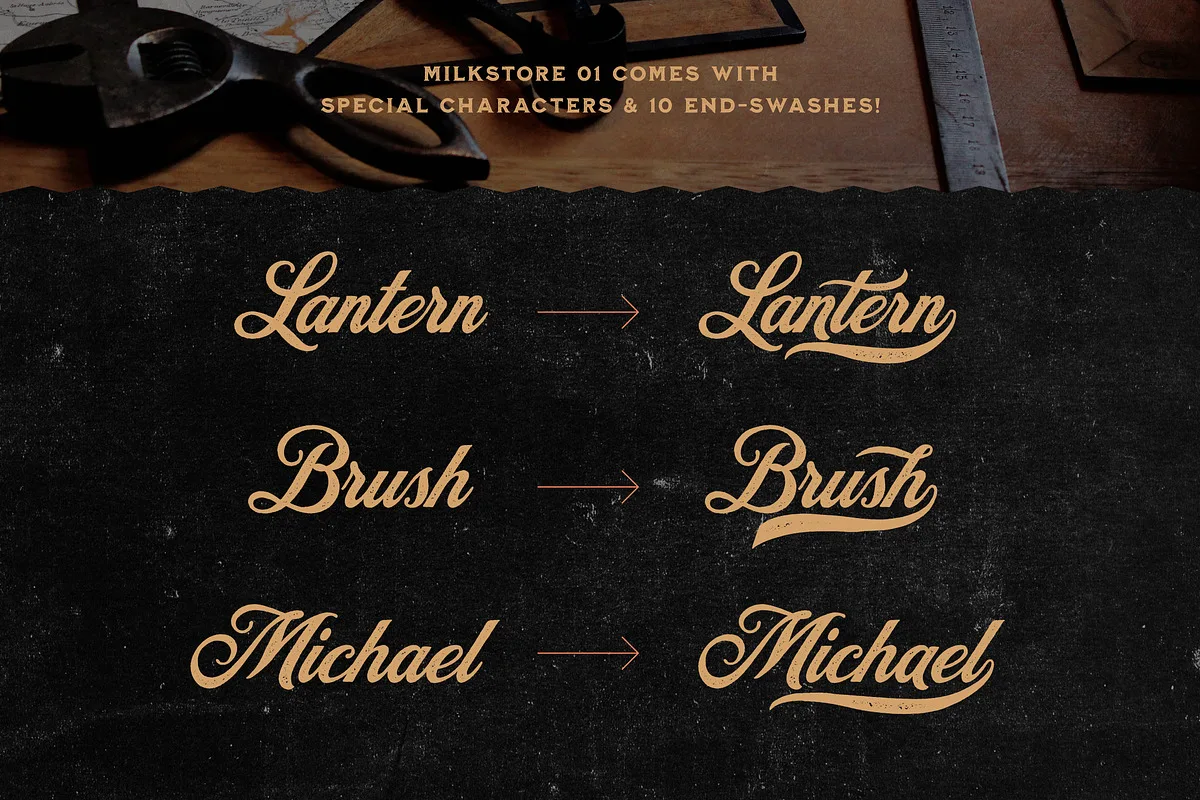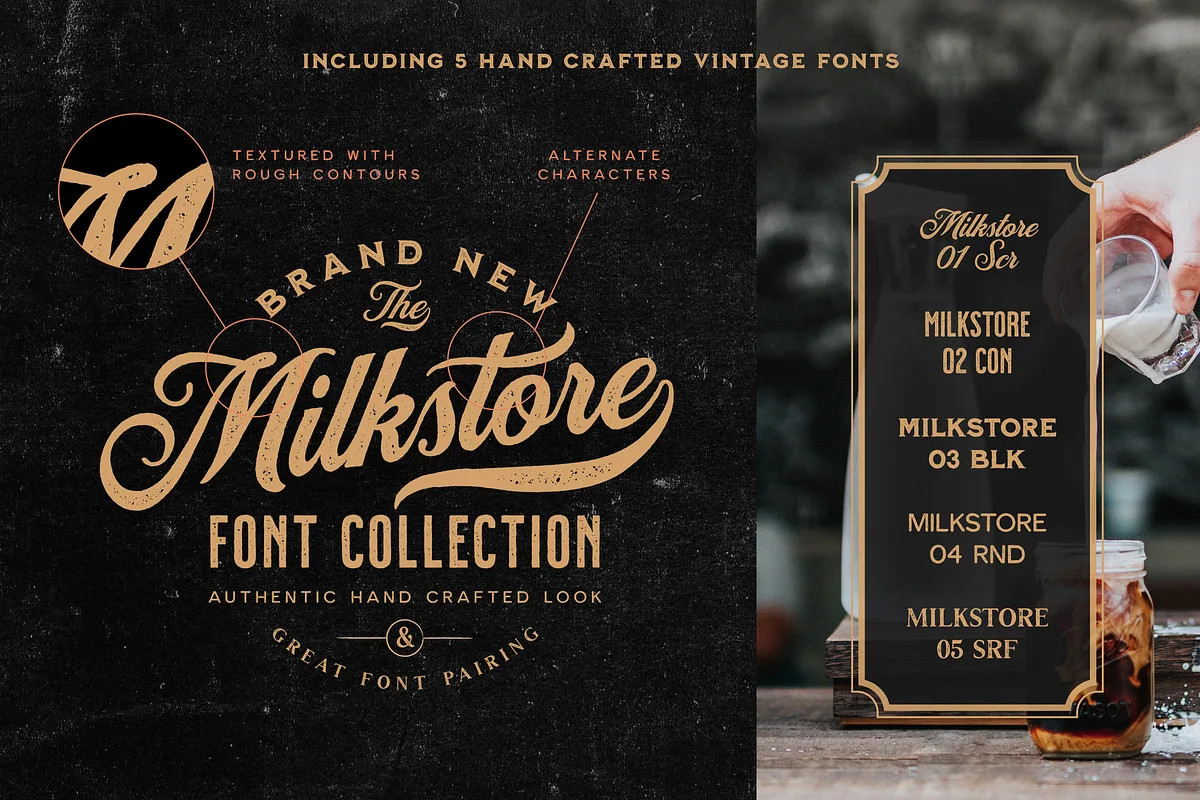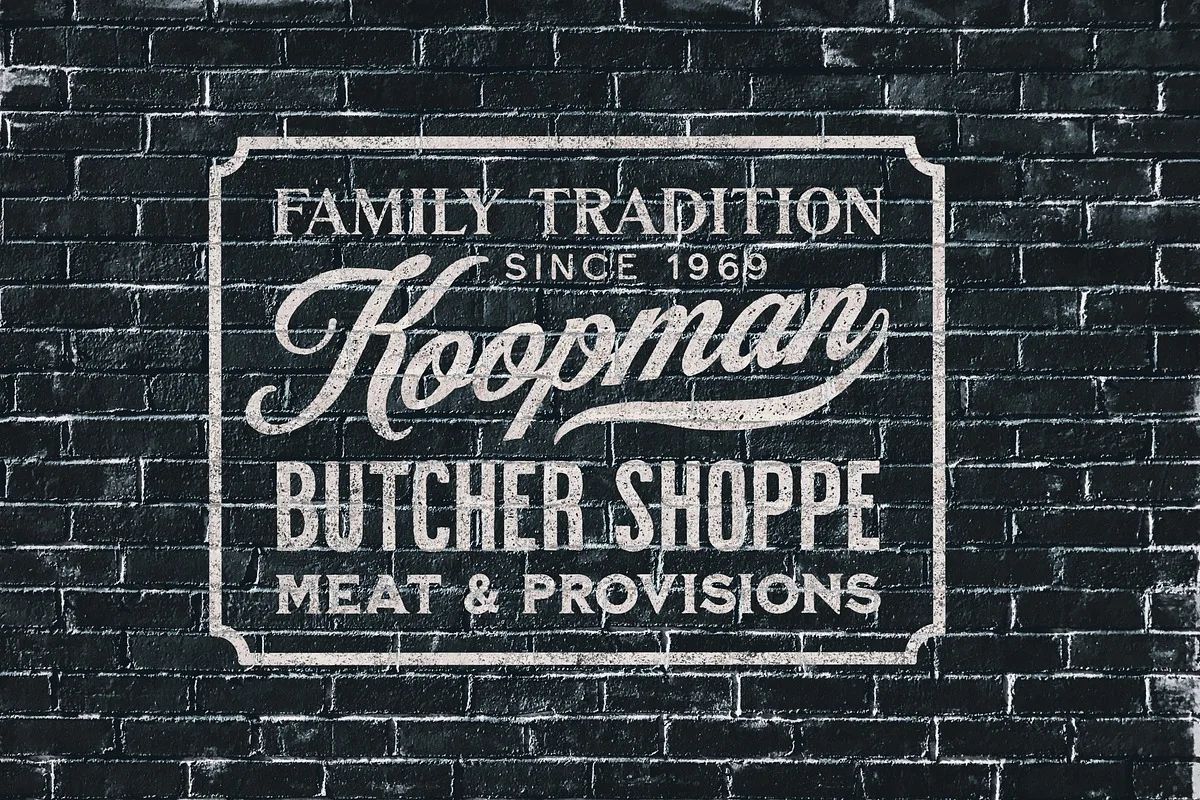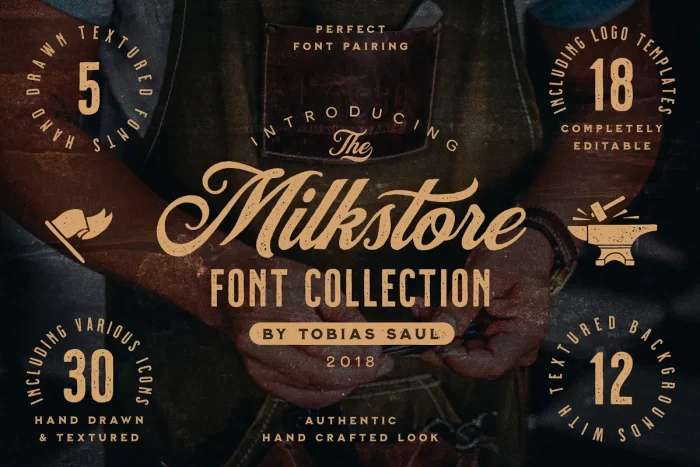
The Milkstore Font Collection contains a set of 5 textured handcrafted fonts with an authentic hand-crafted look. The fonts are inspired by vintage brick wall murals and they work perfectly for logo, packaging, or title design with a hand-crafted vibe.
- 3 Font Styles: textured, rough & clean
- Numerals & Punctuation
- Accented Characters (West Europe)